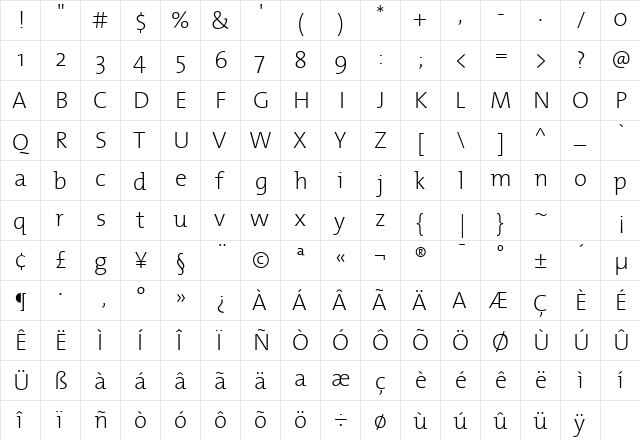
TheMixExtraLight Plain
Design Context for TheMixExtraLight Typeface
TheMixExtraLight takes a measured approach to typography — its balanced proportions and neutral character make it a reliable workhorse for both digital and print work. Its slender proportions lend an understated elegance to any composition.